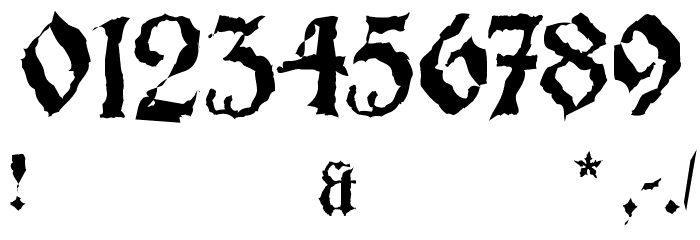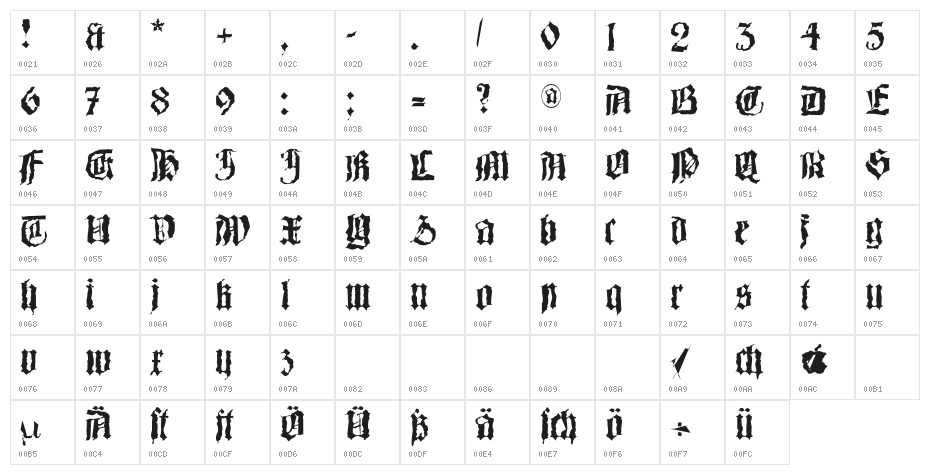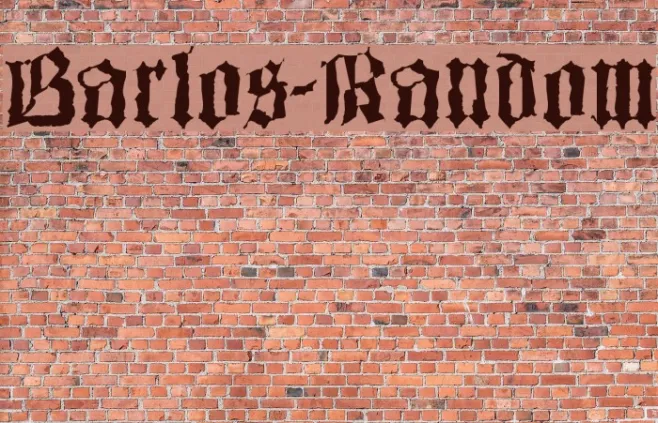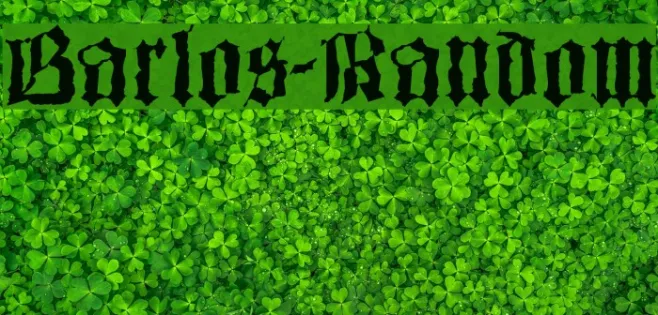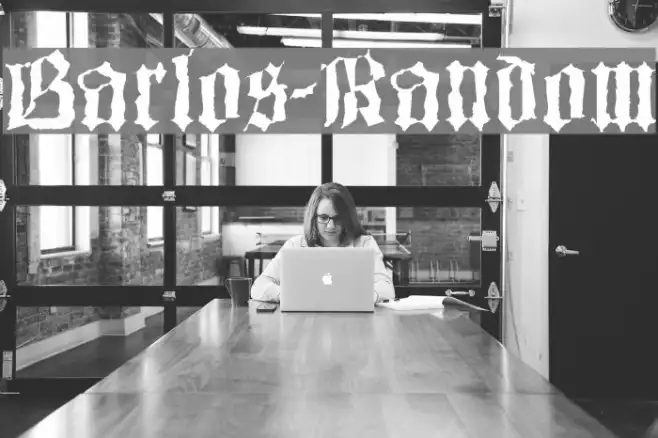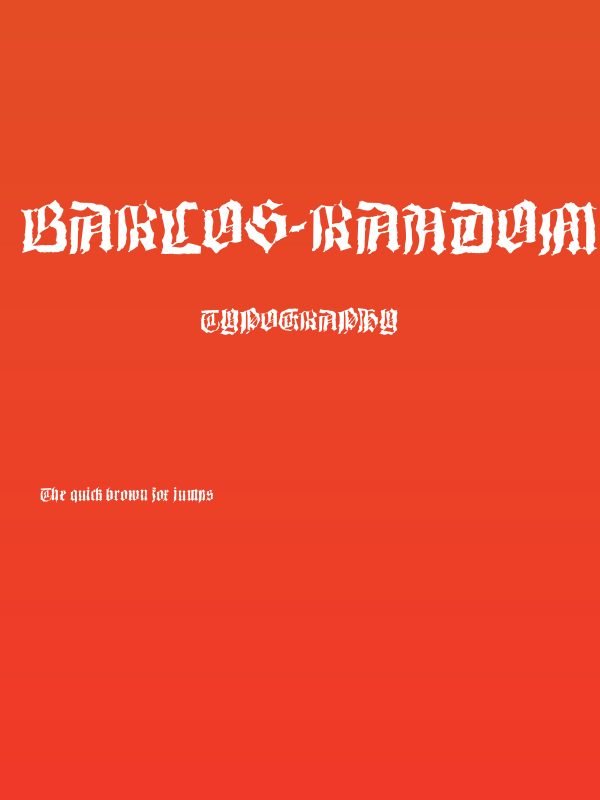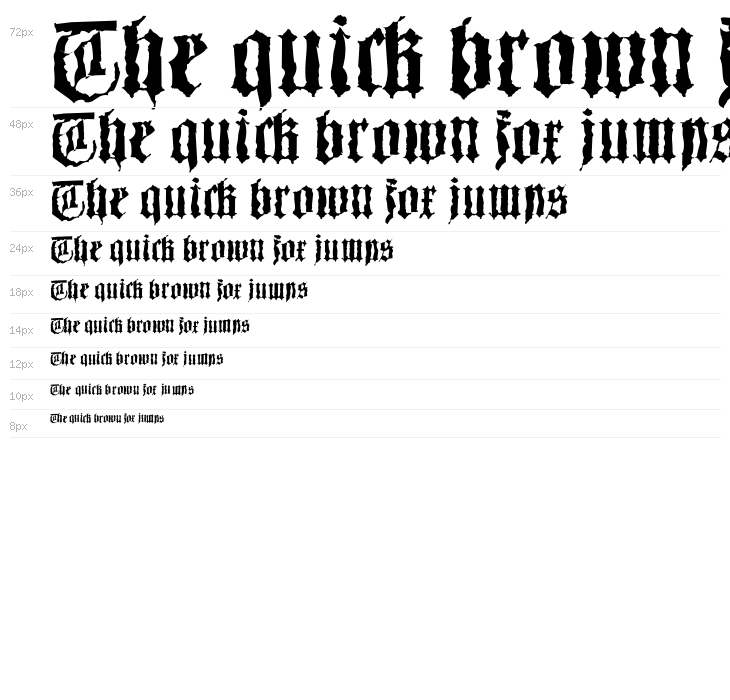
Barlos-Random Font
Barlos-Random Description
This font exhibits a bold and dramatic style, reminiscent of traditional Blackletter typefaces. The characters are intricately designed with sharp, angular lines and pronounced serifs, giving them a gothic and medieval appearance. The uppercase letters are particularly ornate, with elaborate flourishes that enhance their decorative quality. The lowercase letters maintain the same stylistic elements but are slightly more subdued, ensuring readability while preserving the overall aesthetic. Numbers and special characters are crafted with the same attention to detail, making them cohesive with the rest of the typeface. This font is ideal for projects that require a historical or vintage touch, such as themed event invitations, posters, or branding for products that wish to evoke a sense of tradition and craftsmanship.
| Proposed Projects | Ideal for vintage-themed posters, historical event invitations, or branding that seeks a traditional aesthetic. |